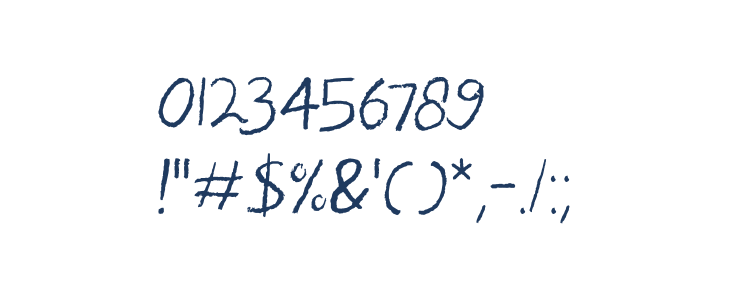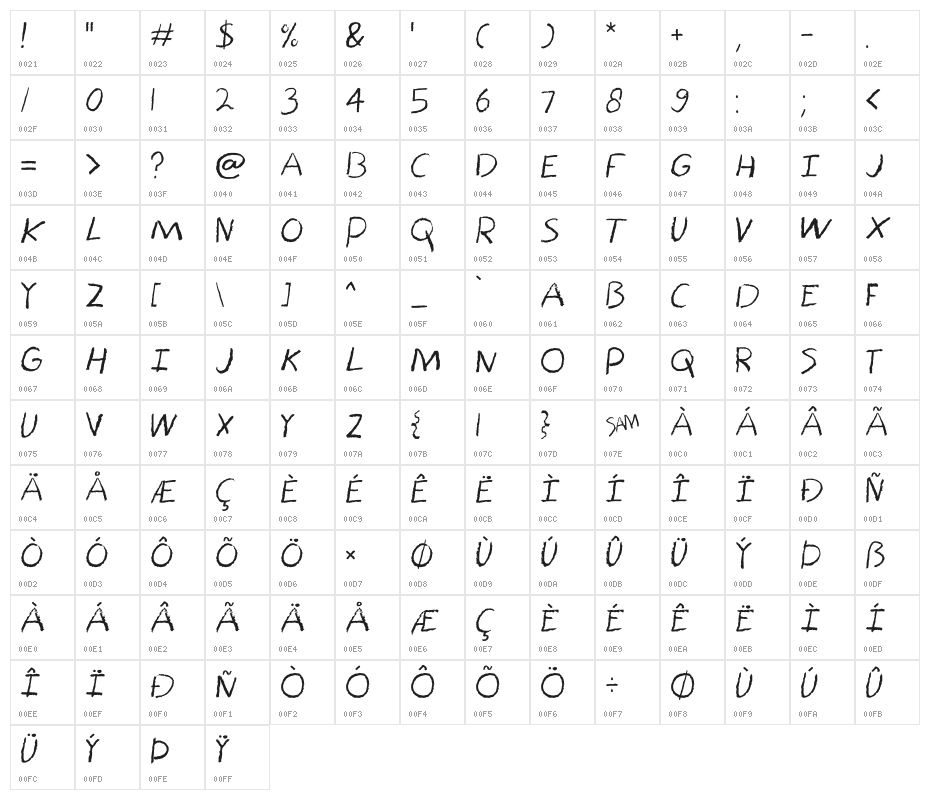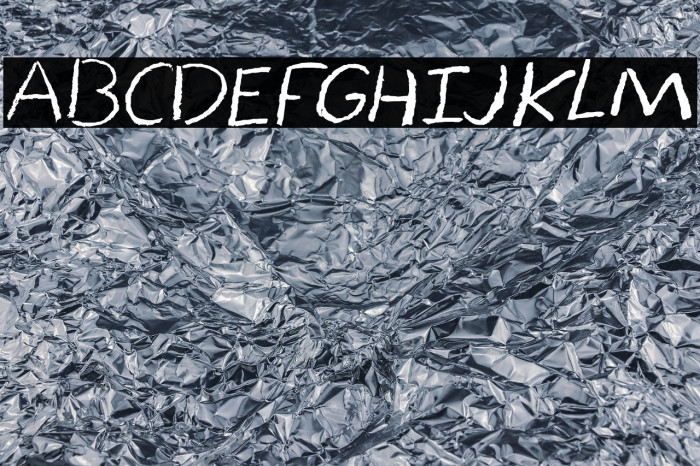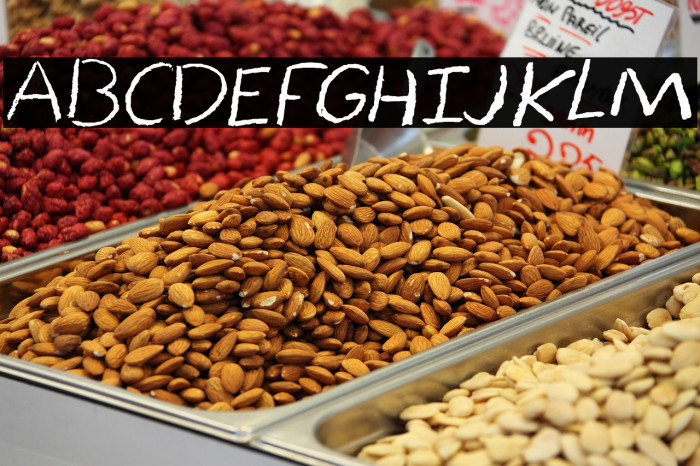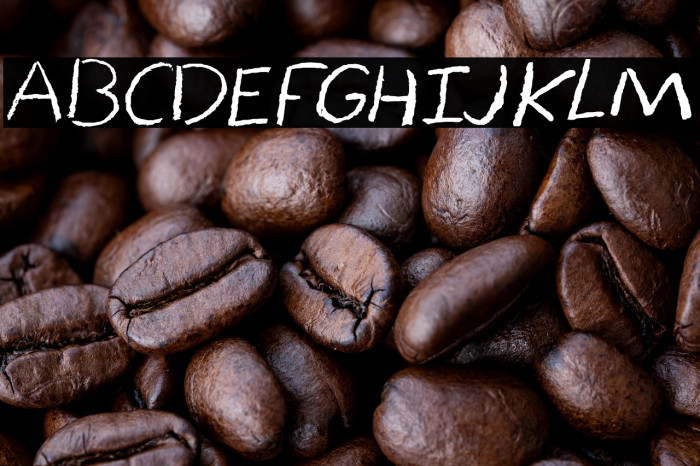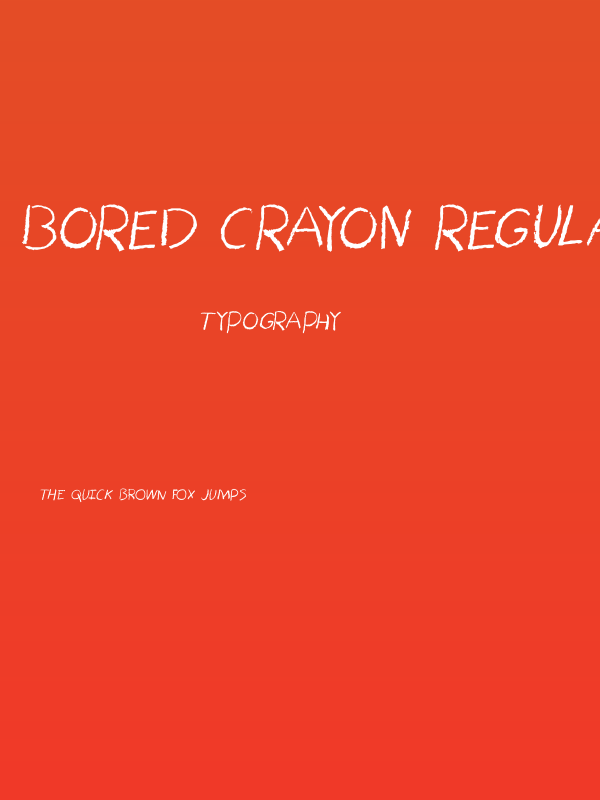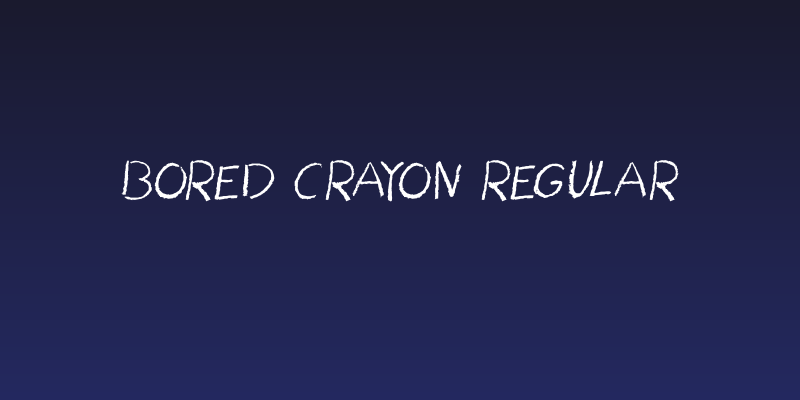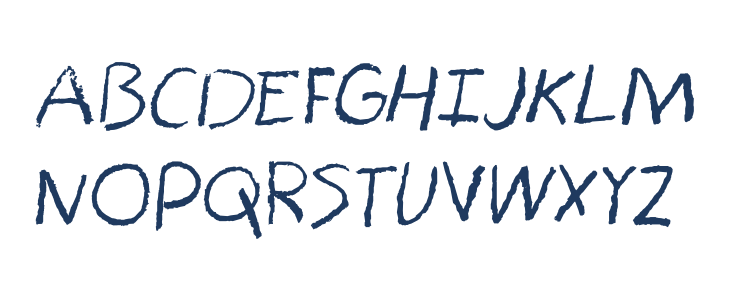
Bored Crayon Regular Font
Bored Crayon Regular Description
This font exudes a playful and informal vibe, reminiscent of hand-drawn crayon strokes. The letters have an uneven, textured appearance, giving them a childlike charm. The strokes are irregular and slightly rough, adding to the casual, artistic feel. Each character maintains a consistent height, but the widths vary, enhancing the organic, spontaneous look. The numbers and special characters follow the same style, ensuring a cohesive appearance across all elements. This font is perfect for projects that require a touch of whimsy and creativity.
| Overall Style | Casual, Artistic |
| Use Case | Headlines, Creative projects, Informal settings |
| Proposed Projects | Ideal for children's books, playful posters, creative invitations, and educational materials. |